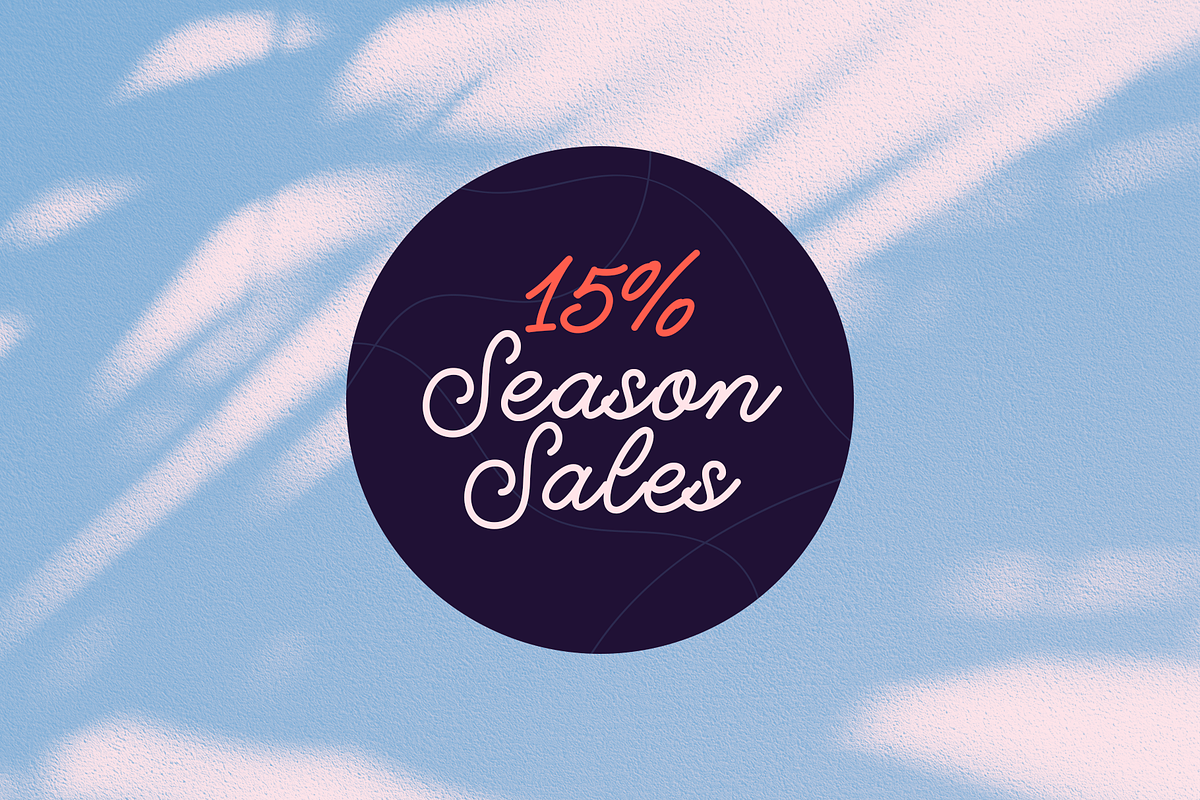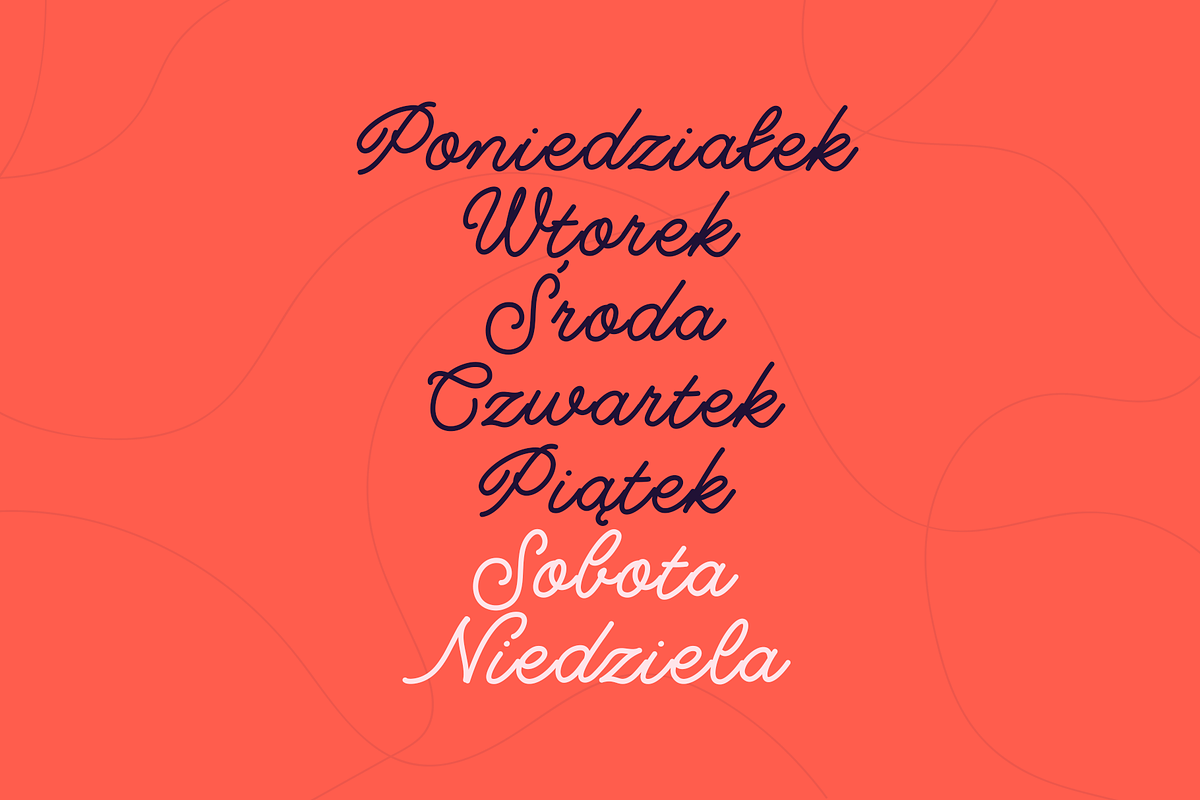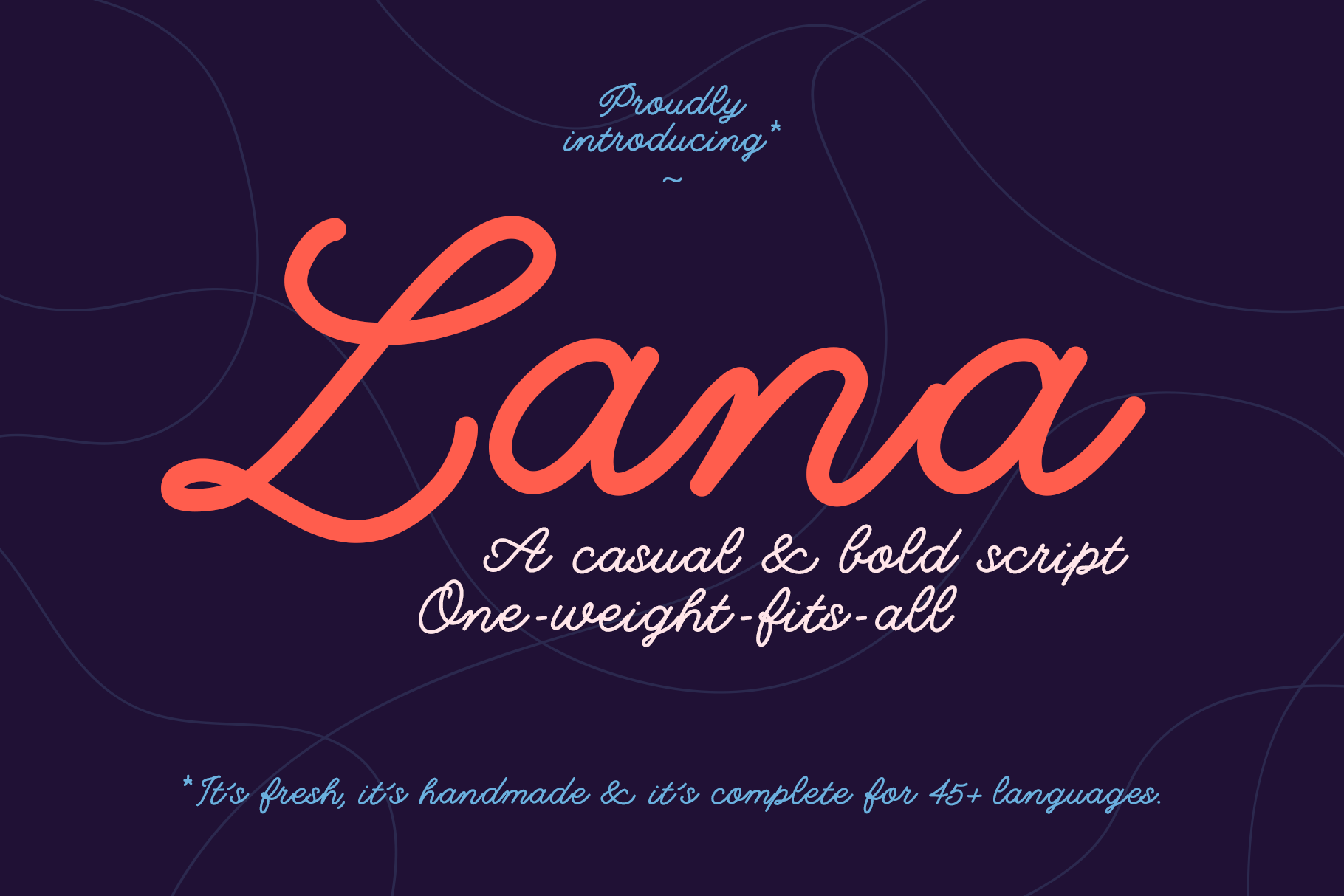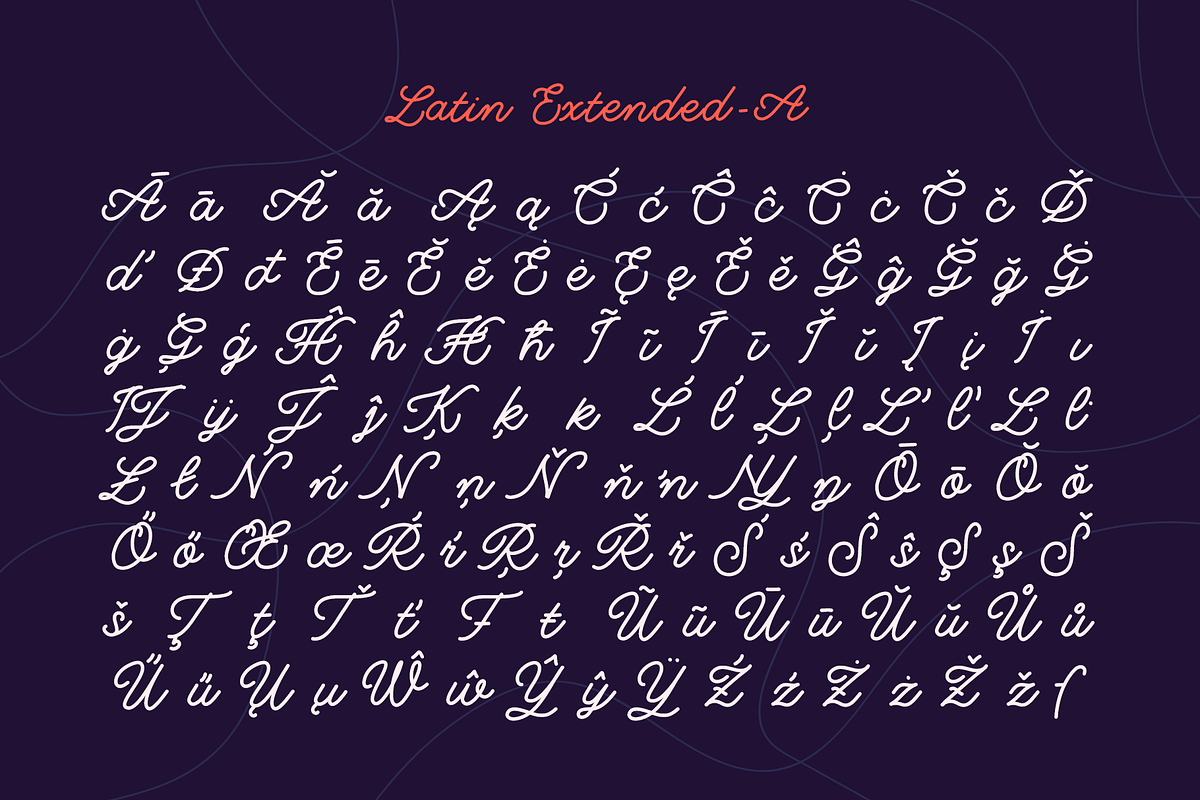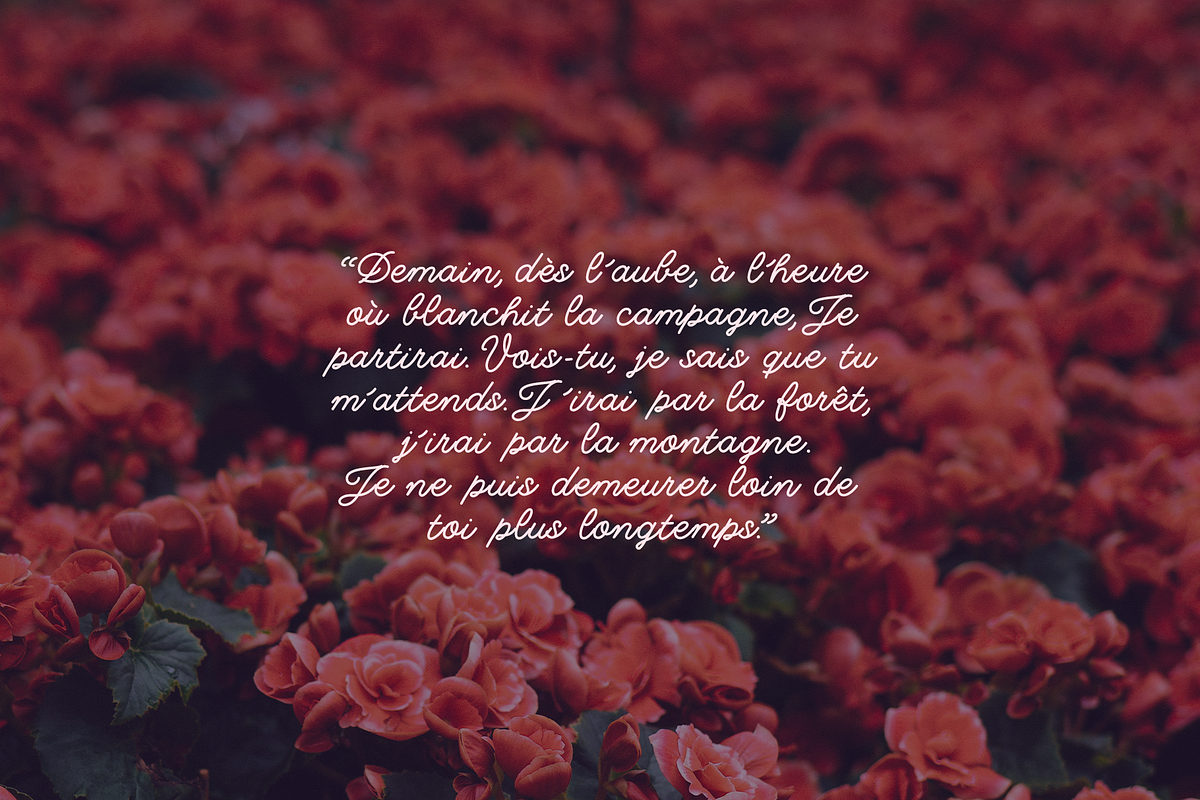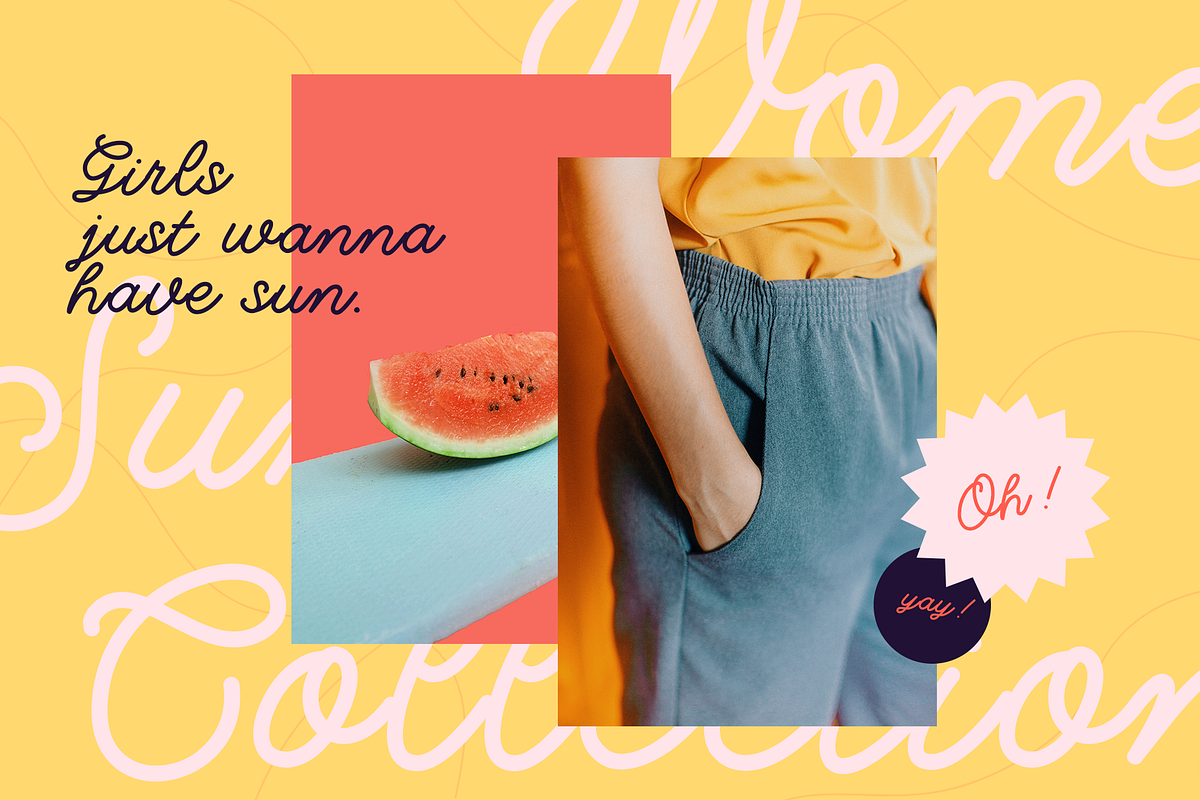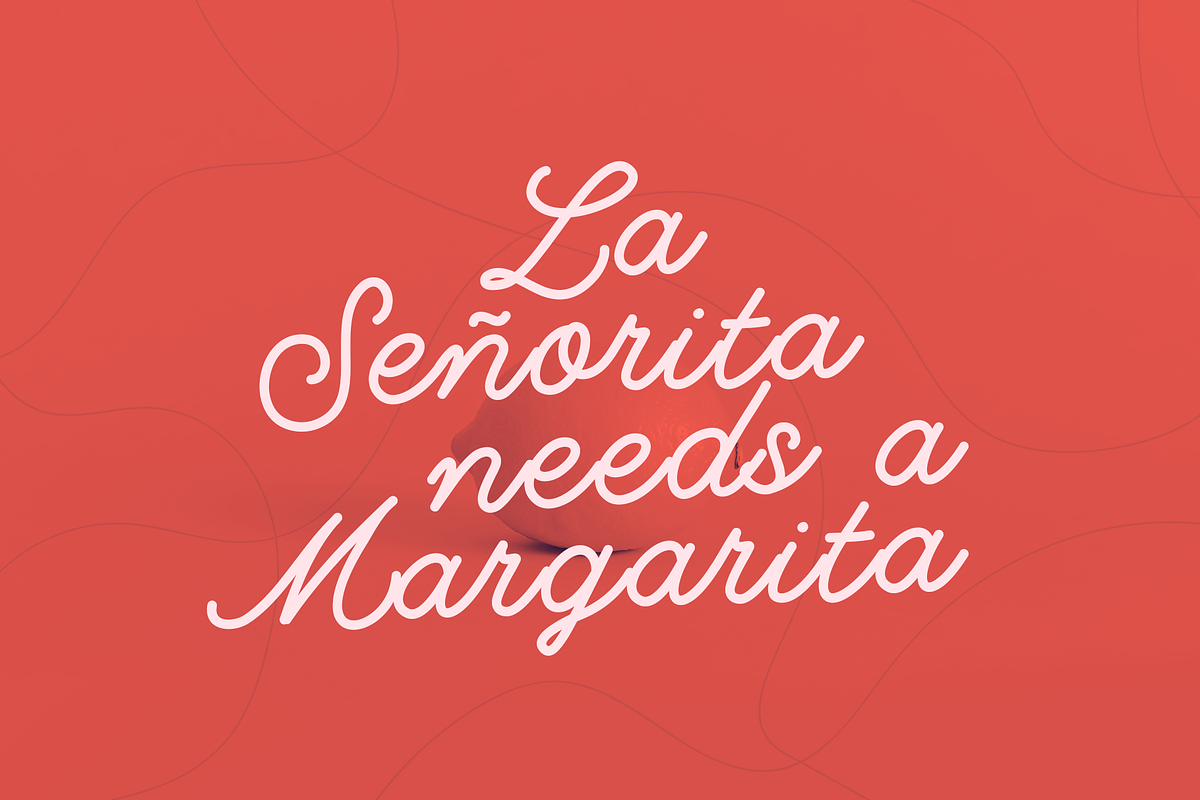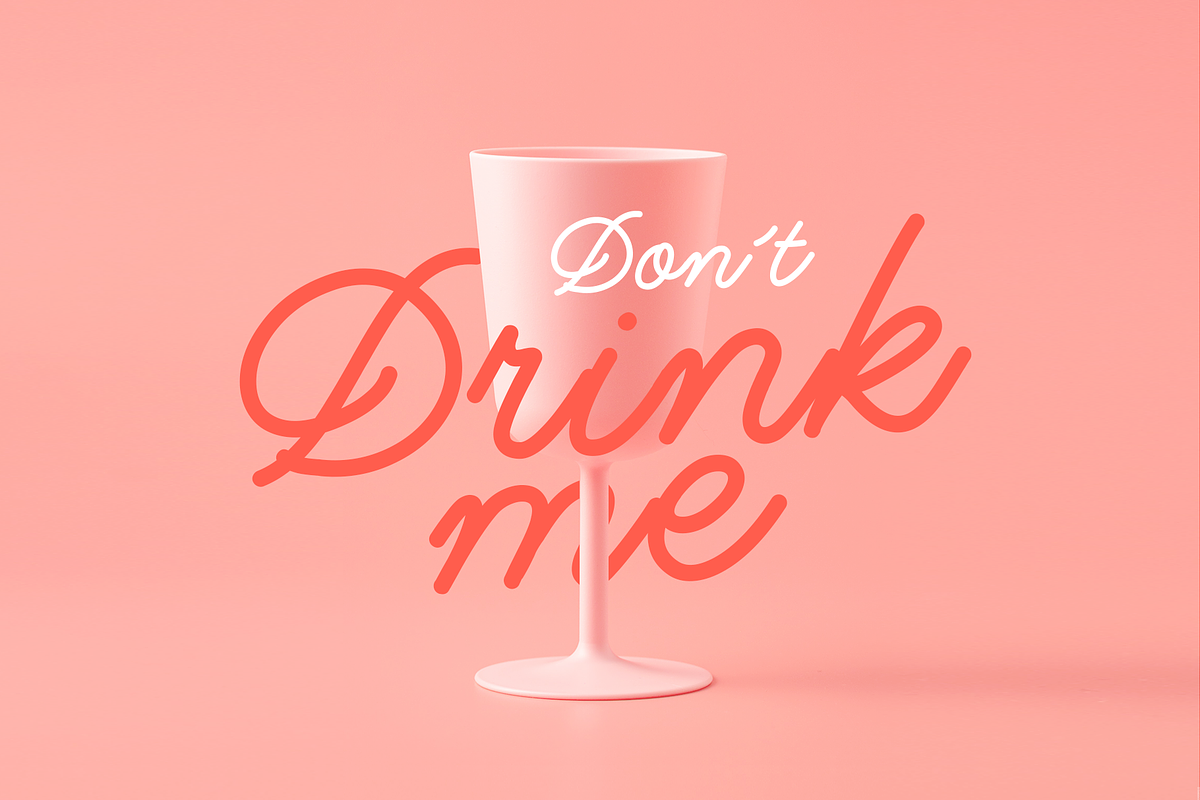
Lana Script Font
Introducing Lana, a cute handwritten font with a great personality. Give your designs a fresh touch. It's stylish but legible enough due to its smooth shapes and would be perfect to combine with sans or serif fonts.
You can use this font for every project, personal or commercial: branding and logotypes, apparel, merchandise, social media posts, wedding invitations, fashion or child-like projects, editorial, packaging, brochure or any display use. It’s fresh, it’s casual, it’s bold, it’s Lana!
- Uppercase and lowercase letters, numbers, & extended punctuation
- Non-English support for the international designer*
- Special ligatures for some letter combinations (ff, fi, fl, ffi, fft, ft, st) and fixed ligatures for Gx, Hj, Hm, Hn, Hr, Hx, Mr, Mx, ox, óx, vj &vr.
- Just one-weight-fits-all
*Fonts include multilingual support for the following languages; English, French, Italian, Spanish, Catalan, Basque, Galician, Irish, Frisian, Portuguese, German, Swedish, Norwegian, Danish, Dutch, Turkish, Romanian, Polish, Finnish, Albanian, Breton, Faroese, Icelandic, Italian, Malagasy, Norwegian, Alsatian, Aragonese, Arapaho, Arrernte, Asturian, Aymara, Bislama, Cebuano, Corsican, Fijian, French-creole, Genoese, Gilbertese, Greenlandic, Haitian-creole, Hiligaynon, Hmong, Hopi, Ibanag, Iloko-ilokano, Indonesian, Interglossa-glosa, Interlingua, Irish-gaelic, Jerriais, Lojban, Lombard, Luxembourgeois, Manx, Mohawk, Norfolk-pitcairnese, Occitan, Oromo, Pangasinan, Papiamento, Piedmontese, Potawatomi, Rhaeto-romance, Romansh, Rotokas, Sami-lule, Samoan, Sardinian, Scots-gaelic, Seychelles-creole, Shona, Sicilian, Somali, Southern-ndebele, Swahili, Swati-swazi, Tagalog-filipino/pilipino, Tetum, Tok-pisin, Uyghur-latinized, Volapuk, Walloon, Warlpiri, Xhosa, Yapese, Zulu...